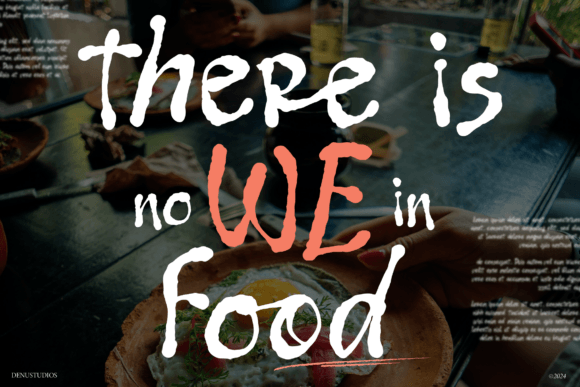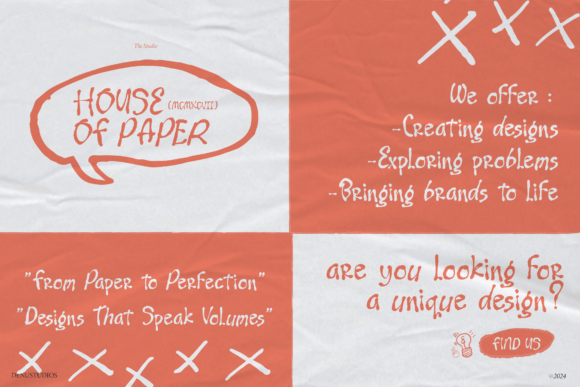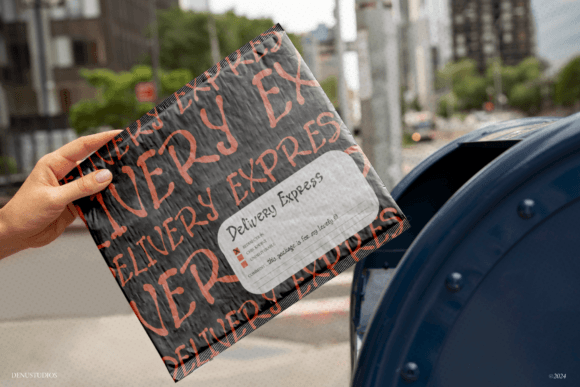
Fungi Freak Font: Unleash Your Creativity with this Playful and Messy Handwriting Font
Are you tired of using the same old fonts for your creative projects? Do you want to add a bold and quirky touch to your designs? Look no further than the Fungi Freak Font! This playful and messy handwriting font is perfect for designers and crafters who want to make a statement with their work.
What is Fungi Freak Font?
Fungi Freak is a handwriting font that looks like it was quickly scribbled, giving it a fun and wild style. The font has a playful and carefree vibe, making it perfect for creative projects that need a bold and quirky touch. The messy and imperfect lines of the font give it a unique and charming character that is sure to grab attention.
Characteristics of Fungi Freak Font
The Fungi Freak Font has several characteristics that make it stand out from other fonts. Some of its key features include:
- Playful and messy: The font has a playful and messy look, with irregular lines and imperfect lettering.
- Handwritten style: The font has a handwritten style, giving it a personal and unique touch.
- Bold and quirky: The font is bold and quirky, making it perfect for creative projects that need a statement piece.
- Fun and wild: The font has a fun and wild style, making it perfect for projects that need a playful and energetic vibe.
Uses of Fungi Freak Font
The Fungi Freak Font is perfect for a variety of creative projects, including:
- Graphic design: The font is perfect for graphic design projects, such as posters, flyers, and brochures.
- Crafting: The font is perfect for crafters who want to add a personal touch to their projects, such as scrapbooking and card making.
- Digital art: The font is perfect for digital artists who want to add a unique and playful touch to their artwork.
- Social media: The font is perfect for social media graphics, such as Instagram and Facebook posts.
Benefits of Using Fungi Freak Font
There are several benefits to using the Fungi Freak Font in your creative projects. Some of the benefits include:
- Unique and eye-catching: The font is unique and eye-catching, making it perfect for projects that need to stand out.
- Playful and fun: The font is playful and fun, making it perfect for projects that need a lighthearted and energetic vibe.
- Easy to read: Despite its messy and imperfect lines, the font is easy to read, making it perfect for projects that need to convey a message.
- Versatile: The font is versatile, making it perfect for a variety of creative projects.
Tips for Using Fungi Freak Font
Here are some tips for using the Fungi Freak Font in your creative projects:
- Use it sparingly: Use the font sparingly to make a statement, rather than overwhelming your project with too much text.
- Pair it with other fonts: Pair the font with other fonts to create a unique and interesting contrast.
- Experiment with colors: Experiment with different colors to find the perfect match for your project.
- Have fun: Most importantly, have fun with the font! The Fungi Freak Font is all about embracing creativity and playfulness.
The Fungi Freak Font is a playful and messy handwriting font that is perfect for creative projects that need a bold and quirky touch. With its unique and eye-catching style, the font is sure to grab attention and make a statement. Whether you’re a designer, crafter, or digital artist, the Fungi Freak Font is a great addition to your font collection. So why not give it a try and see how it can add a fun and wild touch to your next project?